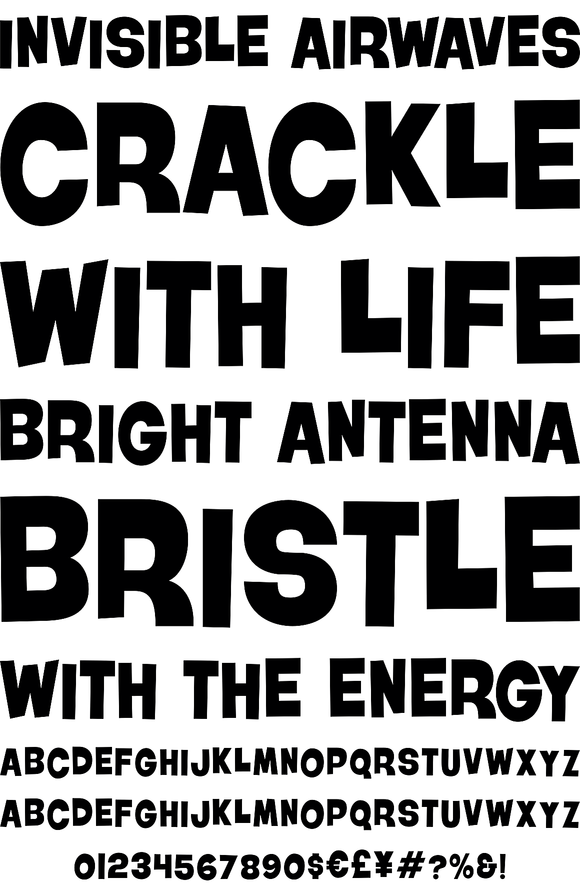
Roller World
Roller World was inspired by my favorite roller skating rink as a kid. It's a great playful display typeface with alternate caps and a variety of weights.